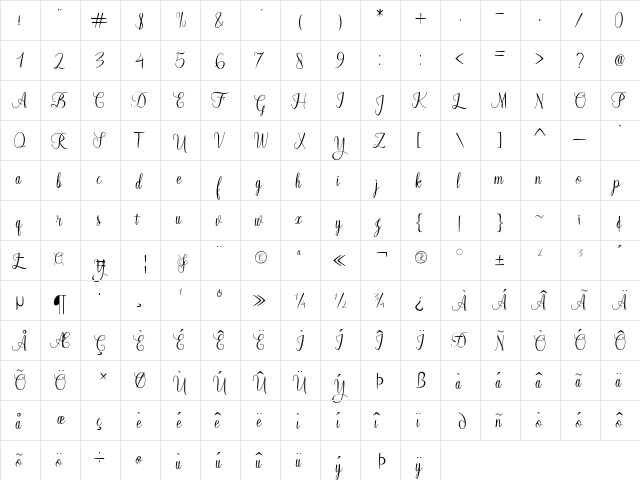
Fayalong Regular
| Foundry | Zoom37 Creative |
| Designer | Muhammad Muzammil |
Design Context for Fayalong Typeface
Fayalong is a composed and adaptable typeface that performs quietly and consistently across a wide range of design contexts.